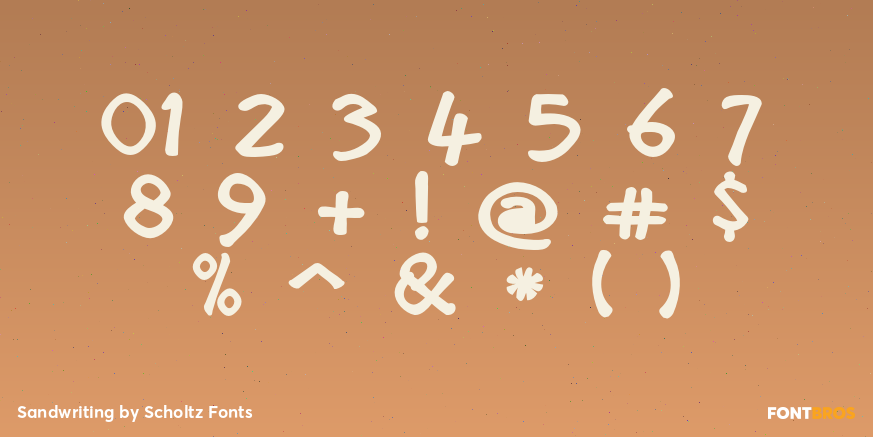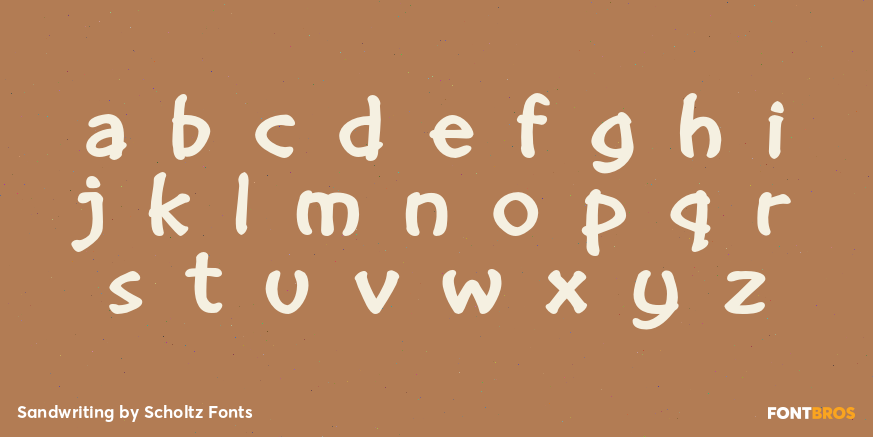
Sandwriting
Font Family by Scholtz Fonts
One of my earliest memories of being able to write - an exciting skill - was of writing with my finger in the fine soft sea sand. I remember the freedom - I had no fear of making mistakes, of smudging ink or of doing anything wrong - and the ease with which I could write or wipe out any thing in the sand.
Designing SandWriting was a tribute to those early memories. The font was an attempt to capture the simplicity and ease of a finger effortlessly making its mark in the sand.
It can be used in many ways: in menus and invitations, in newsletters and advertisements, and in scrapbooks and brochures. It might be particularly useful for written material aimed at younger people.
SandWriting contains all upper and lower case characters, all punctuation and special characters as well as all accented and standard European characters.